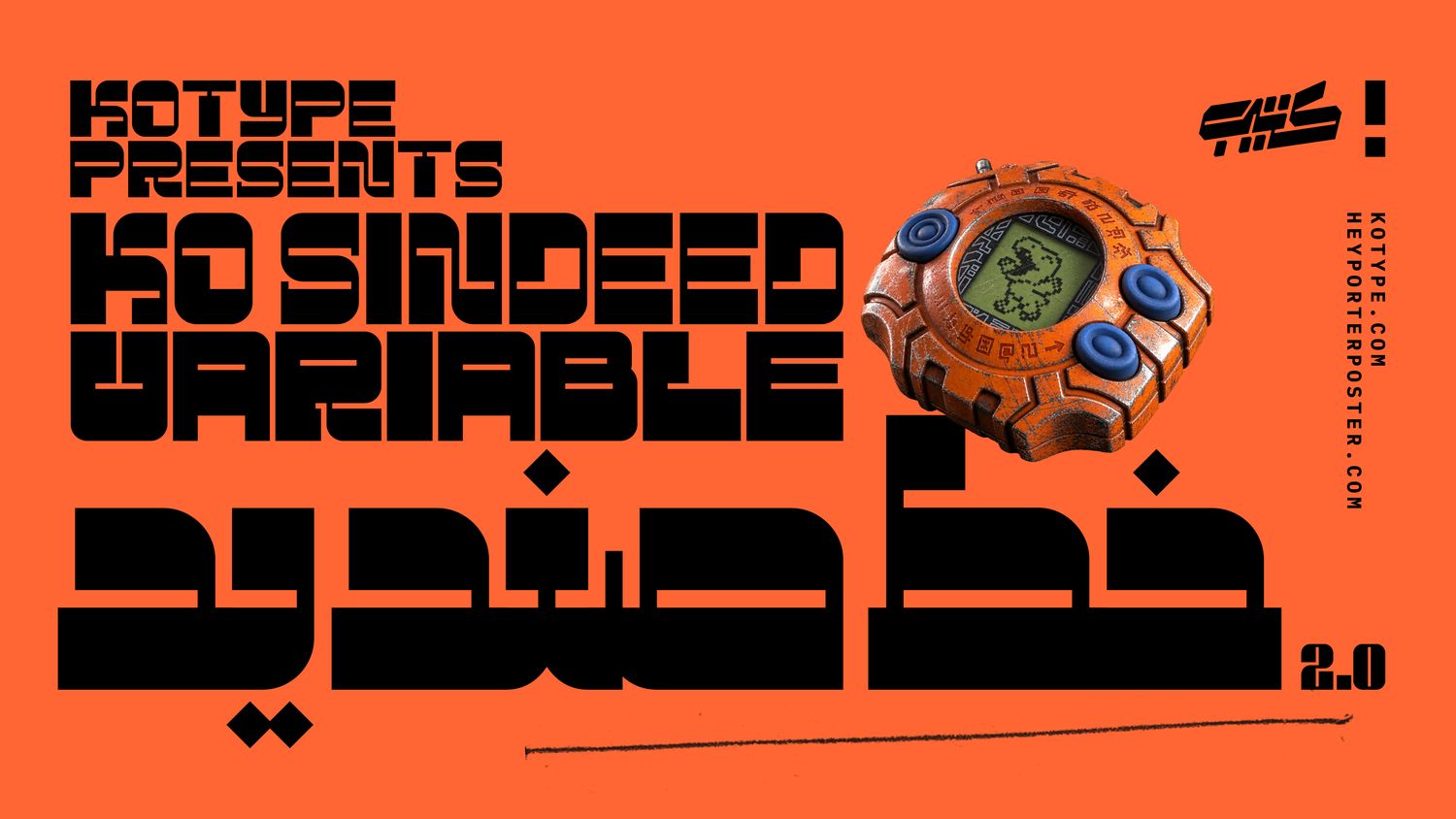
First released in 2021, SINDEED returns in a new and expanded form.
SINDEED is a bold display typeface built around extreme proportions, sharp contrast and a distinctly technological character. Its heavy forms are balanced by narrow cuts, geometric interruptions and unexpected details, creating a voice that feels somewhere between futuristic and strangely familiar.
Version 2.0 rebuilds and expands the original family into a variable typeface, extending SINDEED beyond Arabic with support for Latin, Persian, Urdu and Kurdish.
Across scripts, the design follows the same visual logic rather than simply matching shapes. Each writing system keeps its own structure and rhythm while sharing SINDEED’s weight, proportions and attitude, allowing multilingual typography to feel like one coherent voice.
Made to be seen big, SINDEED works especially well across identities, posters, editorial titles, packaging, music, fashion and anything that needs type with a strong presence.